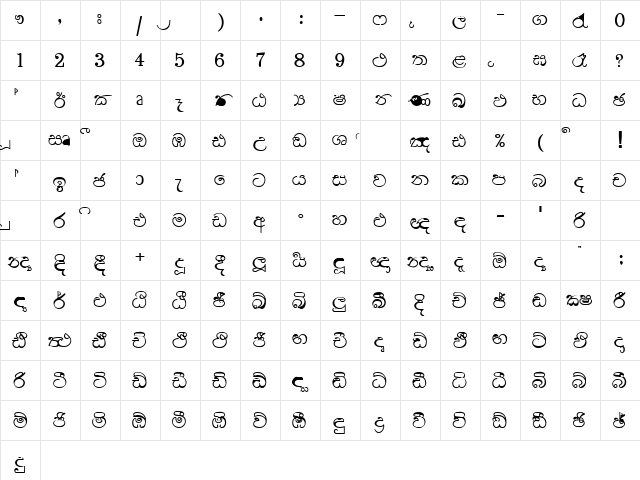
A Manel B Normal Free Font
A Manel B Normal
Design Context for A Manel B
A Manel B is a composed and adaptable typeface that performs quietly and consistently across a wide range of design contexts.